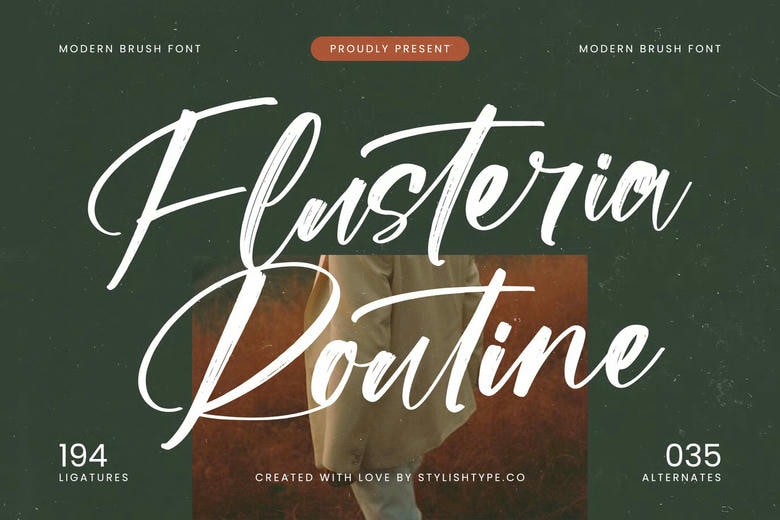
Flusteria Routine Font
Flusteria Routine Font is a modern brush font that brings authentic, handcrafted charm to your design projects. This typeface combines the lively feel of brush strokes with a clean, modern look.
Its natural flow and lively rhythm add warmth and personality, giving each word a touch of elegance and modern style.
Enjoy creative flexibility with its rich character set. With 194 ligatures and 35 alternates, Flusteria Routine Font helps your text flow smoothly and look unique. These options let designers create unique typography that stands out and avoids looking repetitive.
You can use this font confidently for international projects. Its multilingual support makes it easy to adapt to different markets.
This feature helps your message stay strong and stylish in any language, so you can reach more people and keep your brand consistent.
Flusteria Routine Brush Script Font